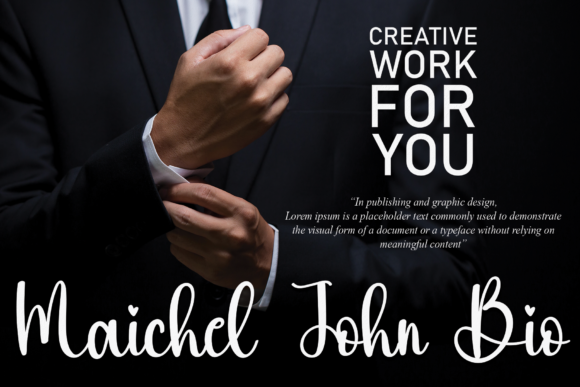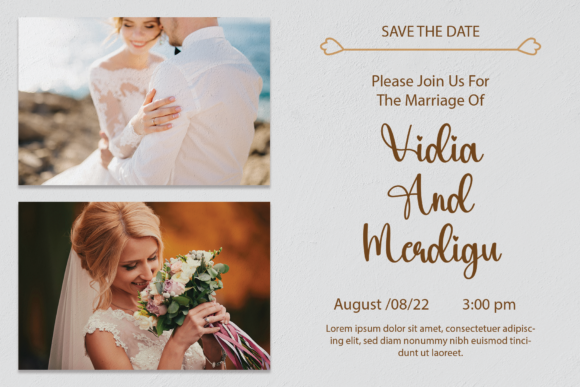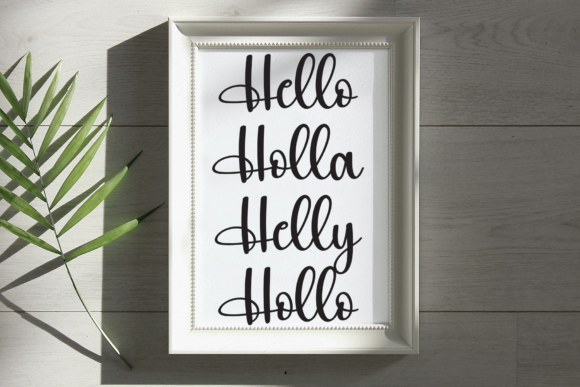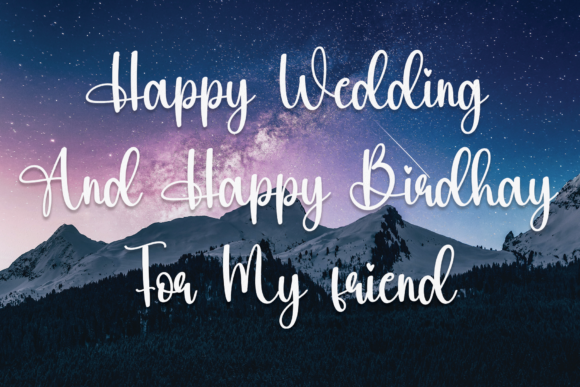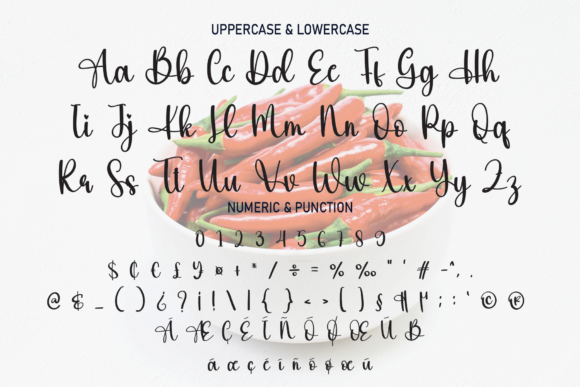
Introducing Chilli Font: The Fun and Friendly Handwritten Font to Elevate Your Designs
Are you tired of using the same old fonts in your designs? Do you want to add a touch of personality and whimsy to your creations? Look no further than Chilli Font, a fun and friendly handwritten font that’s sure to make your designs stand out. In this article, we’ll dive into the unique charm of Chilli Font and explore how you can use it to take your designs to the next level.
What is Chilli Font?
Chilli Font is a carefully crafted handwritten font that’s designed to bring a smile to your face. With its playful and approachable vibe, it’s perfect for designers and crafters who want to add a touch of warmth and personality to their work. Whether you’re creating a logo, a poster, or a social media graphic, Chilli Font is the perfect choice.
The Unique Charm of Chilli Font
So, what sets Chilli Font apart from other fonts? For starters, its handwritten feel gives it a distinctly personal touch that’s hard to replicate with more formal fonts. The letters are carefully crafted to have a sense of movement and flow, giving the font a dynamic and energetic feel. Plus, the subtle imperfections and quirks of the handwriting process add a layer of charm and character that’s impossible to resist.
But Chilli Font isn’t just about looks – it’s also incredibly versatile. Whether you’re using it for a bold headline or a more subtle body of text, the font adapts seamlessly to fit your design needs. And with its clear and legible lettering, you can use it for a wide range of applications, from signage and branding to digital media and more.
How to Use Chilli Font in Your Designs
So, how can you use Chilli Font to elevate your designs? Here are a few ideas to get you started:
- Branding and Logo Design: Use Chilli Font to create a unique and memorable logo that reflects your brand’s personality.
- Social Media Graphics: Add a touch of whimsy to your social media graphics with Chilli Font, perfect for creating engaging and shareable content.
- Posters and Flyers: Use Chilli Font to create eye-catching posters and flyers that grab attention and communicate your message.
- Digital Media: From email newsletters to website headers, Chilli Font is the perfect choice for adding a touch of personality to your digital media.
Tips and Tricks for Working with Chilli Font
Here are a few tips and tricks to help you get the most out of Chilli Font:
- Experiment with Colors: Chilli Font looks great in a wide range of colors, so don’t be afraid to experiment and find the perfect hue for your design.
- Mix and Match: Combine Chilli Font with other fonts to create a unique and visually interesting design.
- Play with Size: Use Chilli Font in a variety of sizes to create visual hierarchy and add emphasis to your design.
In conclusion, Chilli Font is a fun and friendly handwritten font that’s perfect for designers and crafters who want to add a touch of personality and whimsy to their work. With its unique charm and versatility, it’s the perfect choice for a wide range of design applications. So why not give Chilli Font a try and see how it can elevate your designs?
Whether you’re a seasoned designer or just starting out, Chilli Font is a great addition to your font library. So go ahead, get creative, and let Chilli Font help you turn your design ideas into true standouts!